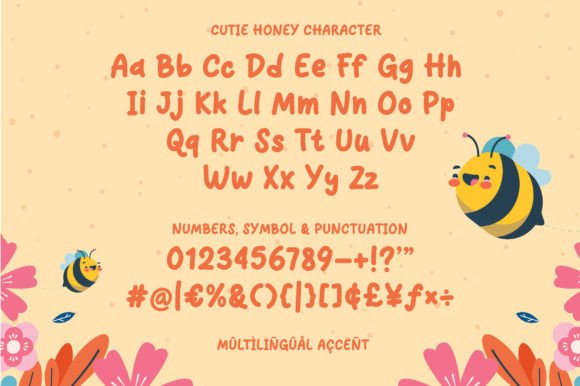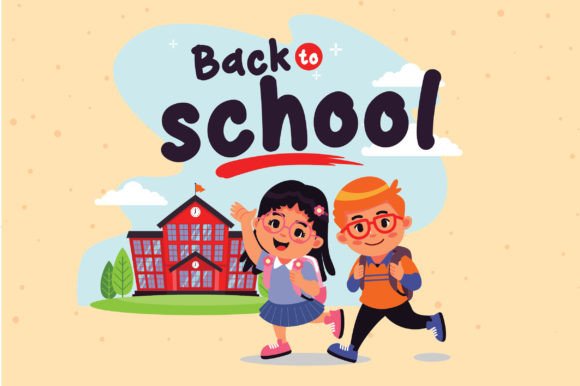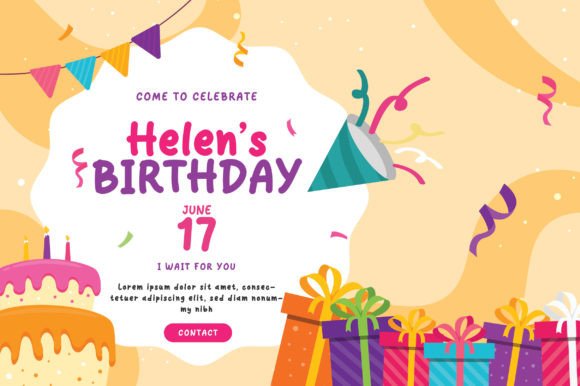
Cutiehoney Font
Are you looking for a cute playful font? Do you want to create something that stands out and inspires creativity, imagination, and endless fun? Wait no more, here is the best choice.
CutieHoney is a cute rounded script display font. It is made with a very good level of aesthetics, making this font suitable for book covers, posters, packaging, merchandise, logotypes, and much more.